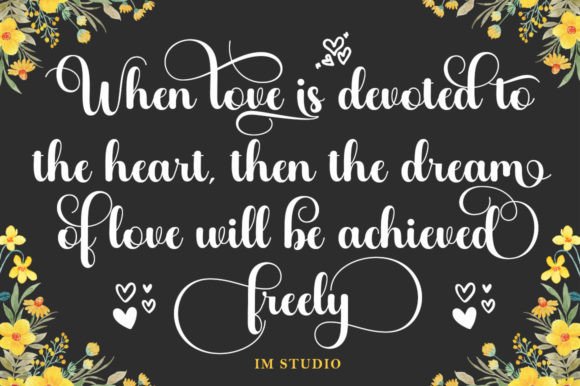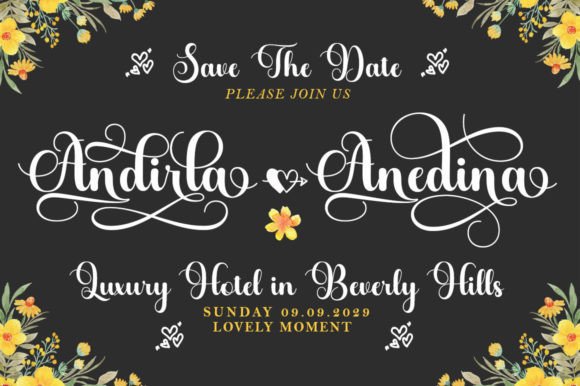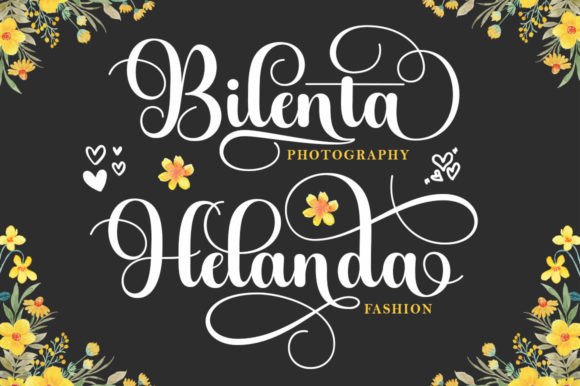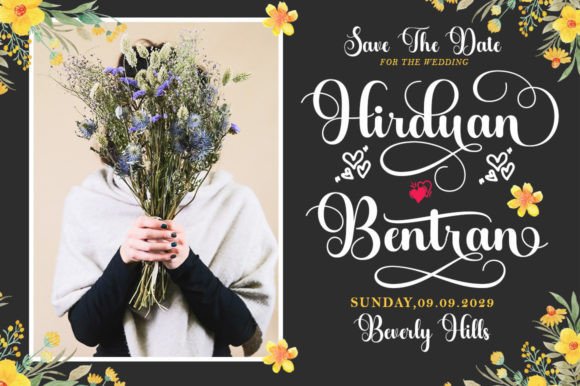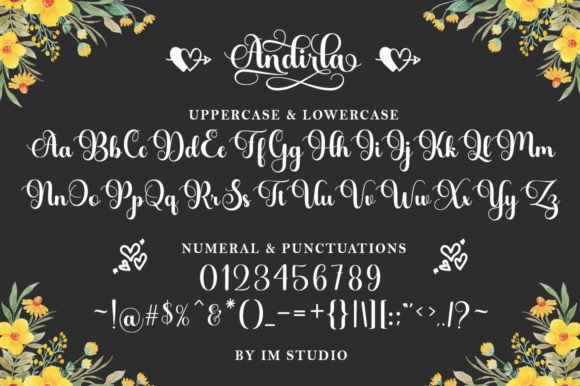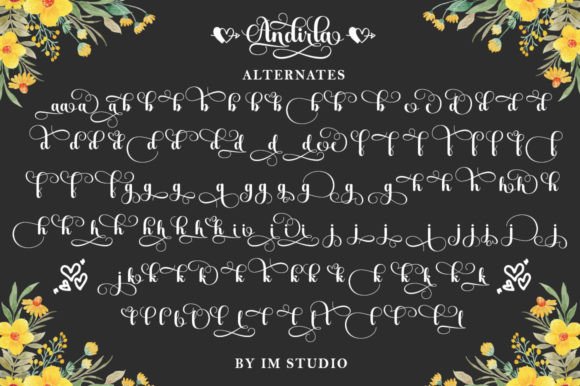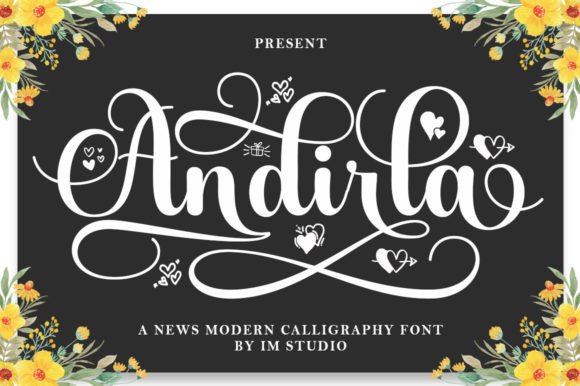
Introducing Andirla Font: The Ultimate Modern Handwritten Font
Are you tired of using the same old fonts in your designs? Look no further! Andirla Font is here to revolutionize your creative projects with its modern and flowing handwritten style. This stunning font features varied bases, smooth lines, gorgeous glyphs, and stunning alternatives that will make your designs stand out from the crowd.
What Makes Andirla Font So Special?
Andirla Font is a versatile and elegant font that is perfect for designers and crafters who want to add a touch of sophistication to their work. Its unique features include:
- Varied Bases: Andirla Font features varied bases that give it a natural and organic feel. Each letter has a unique base that adds to the font’s overall charm.
- Smooth Lines: The font’s smooth lines make it perfect for creating beautiful and flowing text. Whether you’re designing a logo, a poster, or a social media graphic, Andirla Font’s smooth lines will make your text look stunning.
- Gorgeous Glyphs: Andirla Font comes with a range of gorgeous glyphs that will take your designs to the next level. From elegant swashes to beautiful ligatures, this font has everything you need to create stunning text.
- Stunning Alternatives: Andirla Font also features stunning alternatives that will give you even more creative options. With multiple versions of each letter, you can mix and match to create unique and eye-catching text.
The Benefits of Using Andirla Font
So why should you choose Andirla Font for your next design project? Here are just a few benefits of using this amazing font:
- Versatility: Andirla Font is incredibly versatile, making it perfect for a wide range of design projects. From logos and posters to social media graphics and websites, this font will look great in any context.
- Elegance: Andirla Font has an elegant and sophisticated feel that will add a touch of class to any design. Whether you’re creating a luxury brand or a personal project, this font will help you achieve your design goals.
- Easy to Read: Despite its elegant feel, Andirla Font is also easy to read. This makes it perfect for body text, headings, and any other type of text where readability is important.
How to Use Andirla Font in Your Designs
- Pair it with Other Fonts: Andirla Font looks great when paired with other fonts. Try pairing it with a bold sans-serif font for a striking contrast.
- Experiment with Colors: Andirla Font comes in a range of colors, so don’t be afraid to experiment. Try using different colors to add depth and interest to your designs.
- Play with Ligatures: Andirla Font features beautiful ligatures that will add a touch of elegance to your text. Experiment with different ligatures to find the perfect look for your design.
Andirla Font is a modern and flowing handwritten font that is perfect for designers and crafters who want to add a touch of elegance to their work. With its varied bases, smooth lines, gorgeous glyphs, and stunning alternatives, this font is incredibly versatile and easy to use. Whether you’re creating a logo, a poster, or a social media graphic, Andirla Font is the perfect choice. So why wait? Download Andirla Font today and start creating spectacular designs!
Key Features of Andirla Font
- Modern and flowing handwritten font
- Varied bases for a natural and organic feel
- Smooth lines for beautiful and flowing text
- Gorgeous glyphs and stunning alternatives
- Incredibly versatile and easy to use
- Perfect for logos, posters, social media graphics, and more